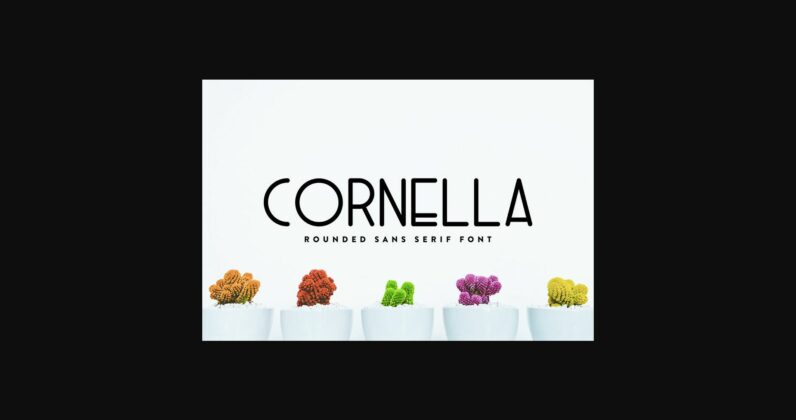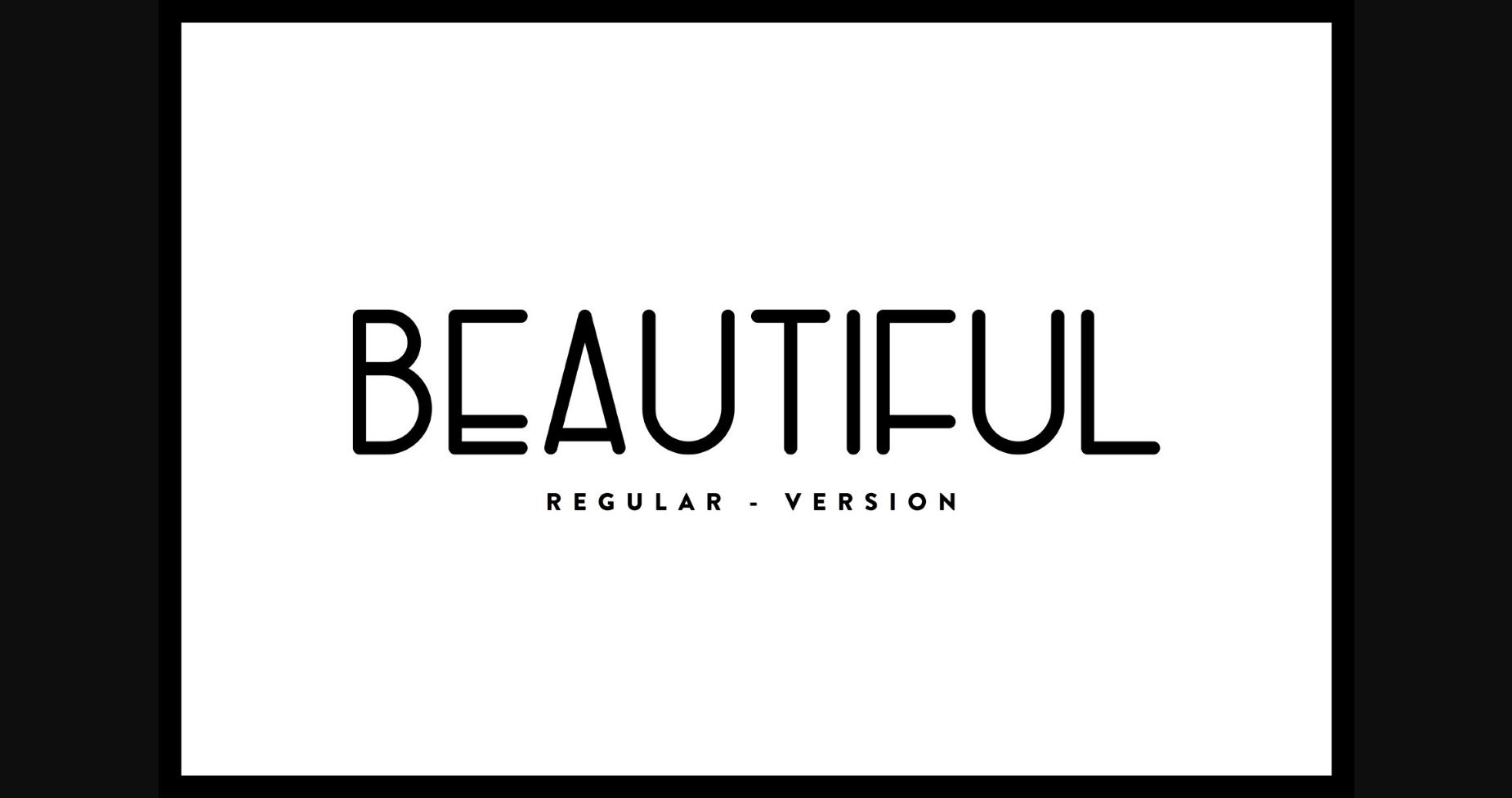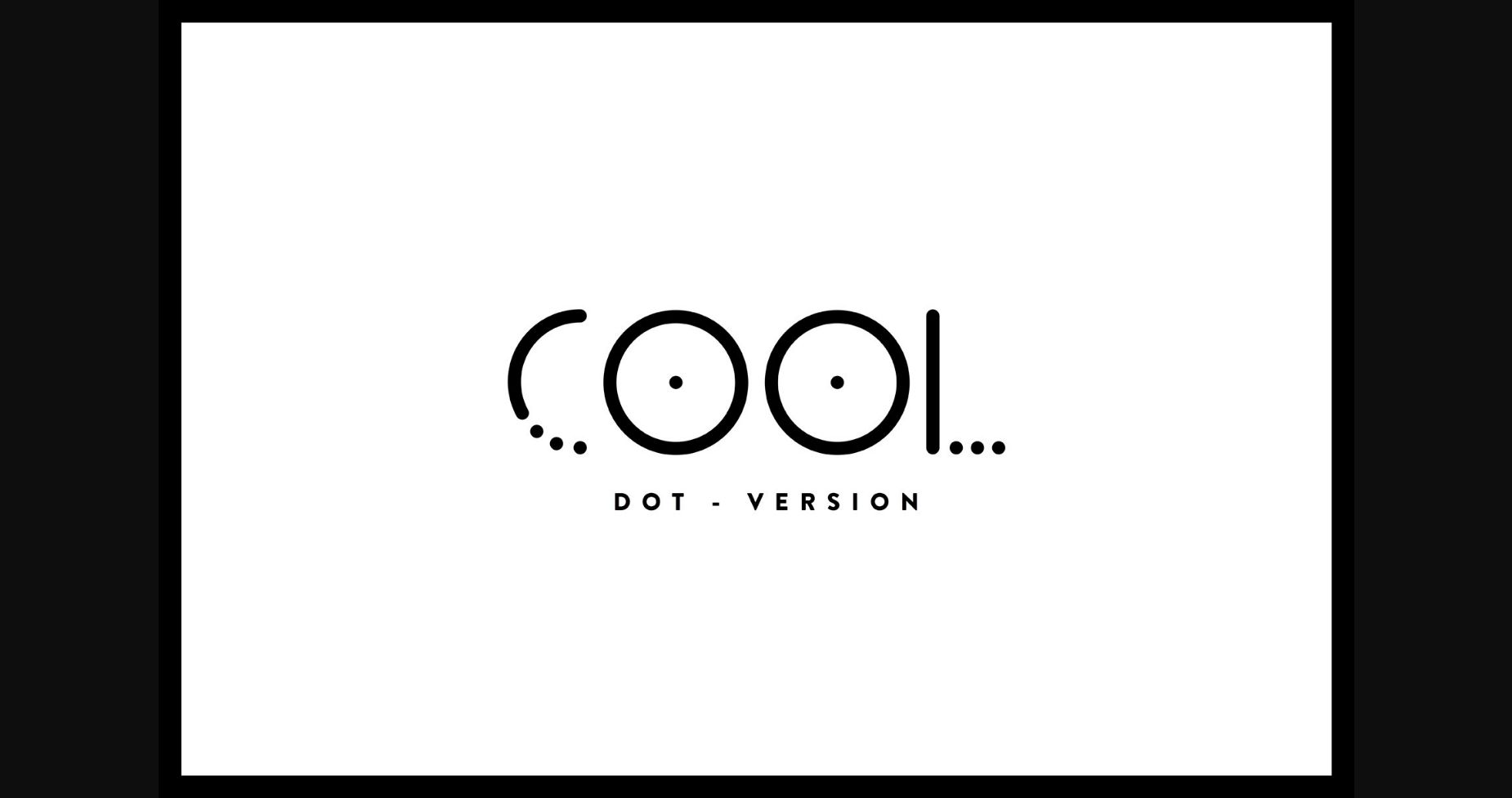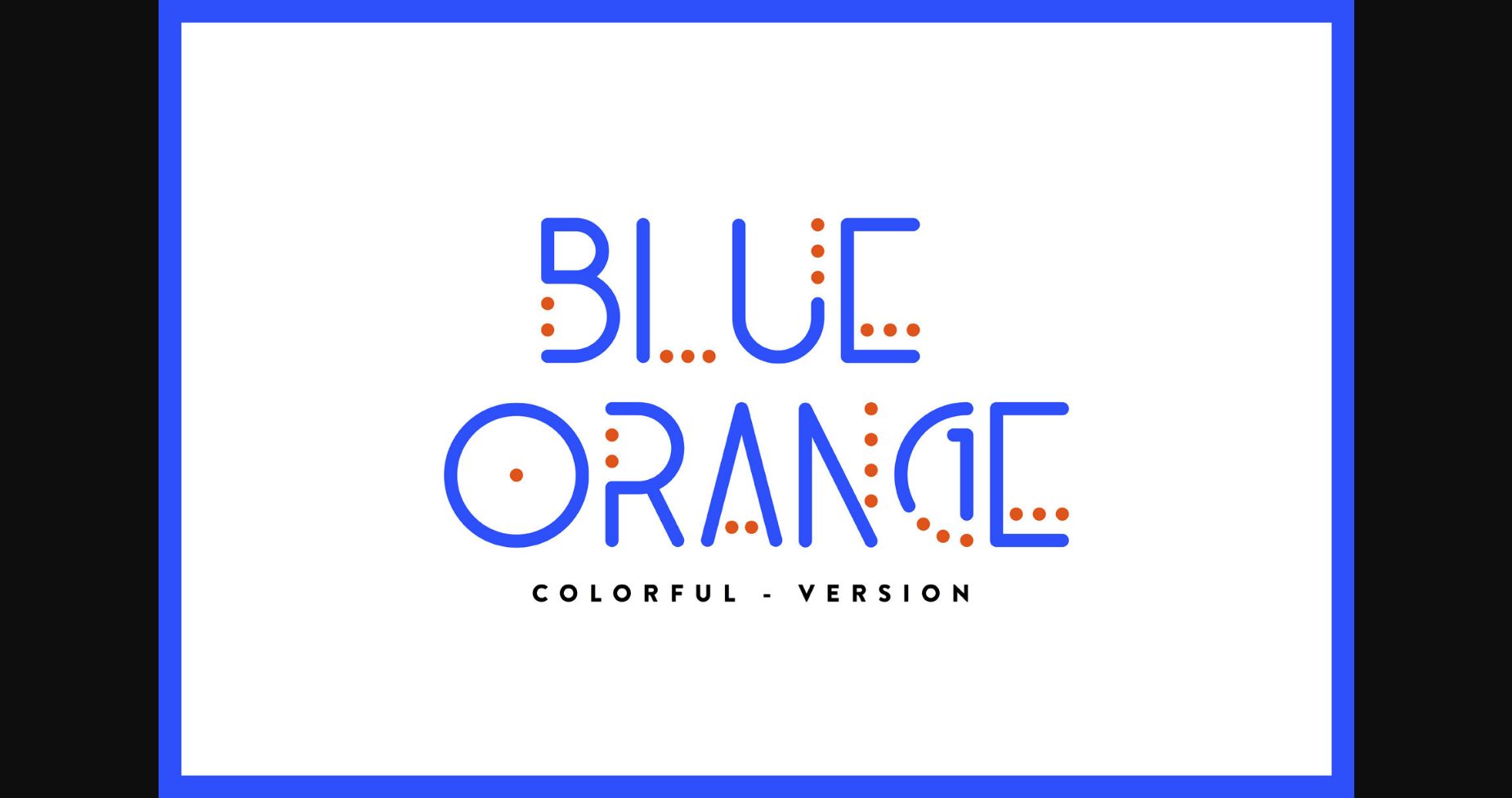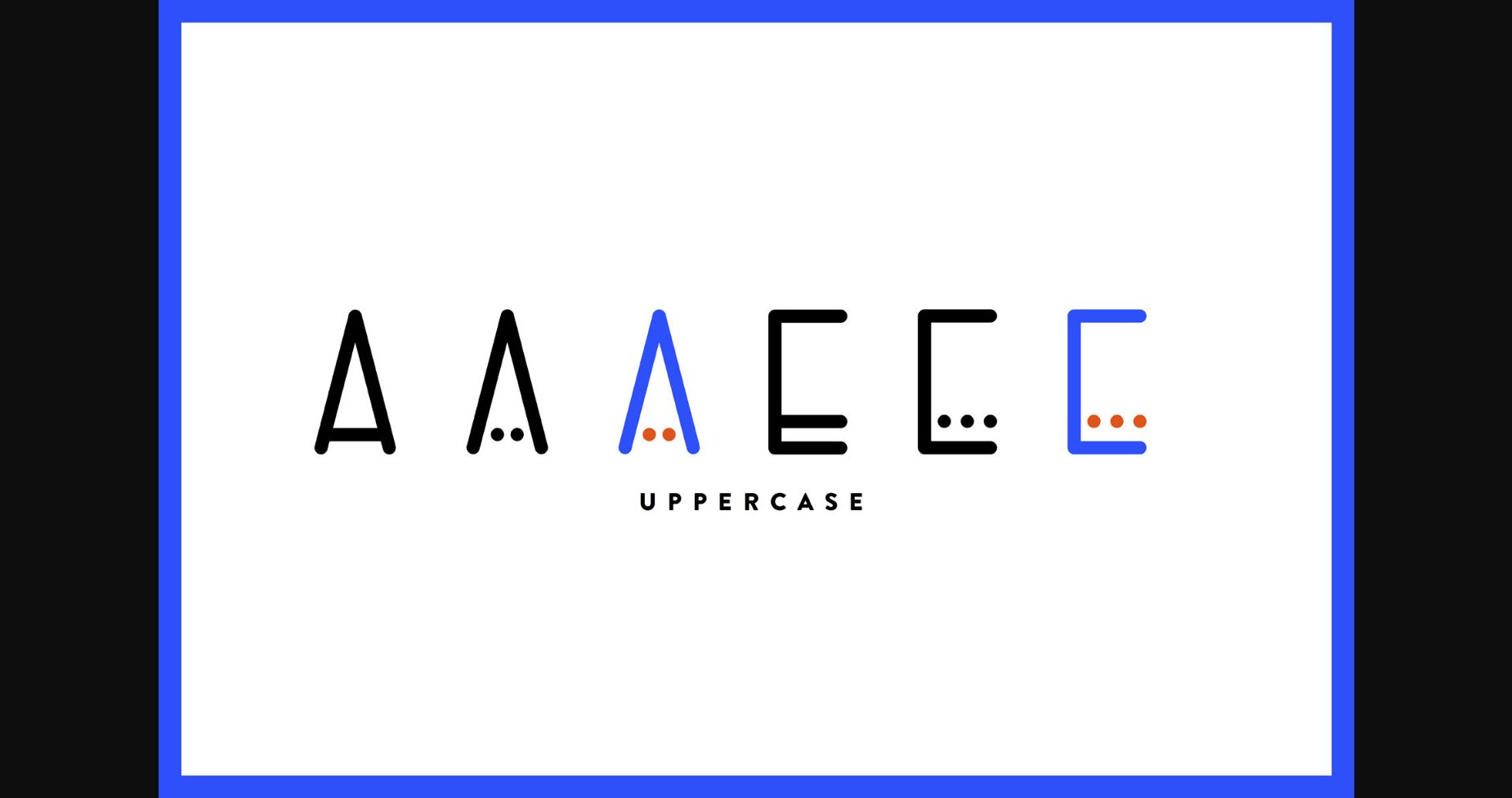
About Cornella Font
Cornella is a modern sans serif font. No matter the topic, this font will be an incredibly asset to your fonts’ library, as it has the potential to elevate any creation.